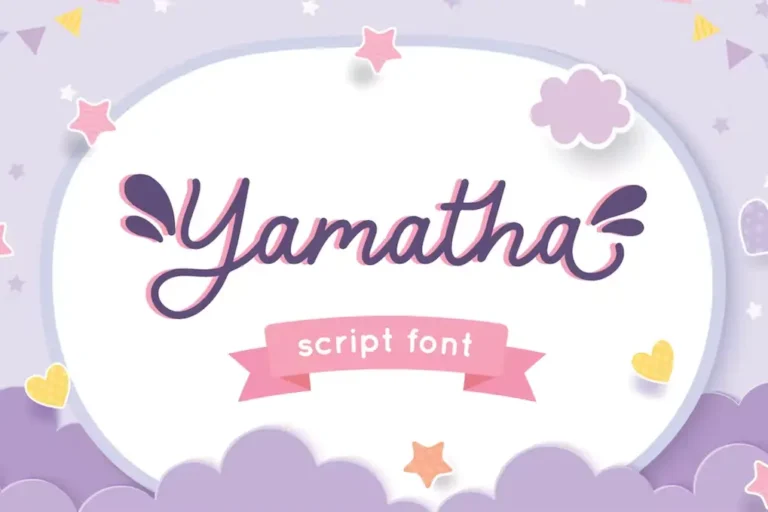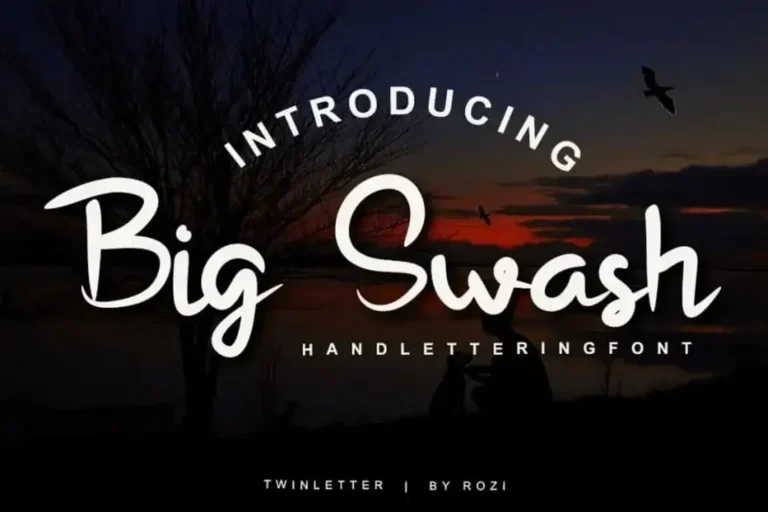
Fonts are a crucial element in any design project, and it’s no surprise that designers are always on the hunt for unique and stylish fonts. These free Swash tail fonts have gained popularity in recent years. Which are characterized by curvy edges and elegant long tails.
Swash fonts are a great way to add a touch of sophistication and flair to your designs. They are often used for invitations, wedding stationery, book covers, and branding materials. These fonts can be playful or formal, depending on the typeface you choose.
What Are Swash Fonts?
Swash fonts are decorative typefaces that feature elegant and exaggerated flourishes, curves, and tails on certain letters or numbers. These flourishes can be found in uppercase letters, lowercase letters, or both and are often used to add a touch of elegance or sophistication to a design.
Swash fonts originated in calligraphy and have been used for centuries in handwritten manuscripts and documents. In the digital era, swash fonts are available in a variety of styles and can be used in a range of design applications, including invitations, logos, and packaging.
Best Free Swash Tail Fonts & Long Tails Fonts
- Kathiya – Beautiful Script Swash Font
- Cosmic Furry – Script Font With Beautiful Tail
- Wild Romance – Quirky Handwritten Font With Swash Tail
- Amertha – Free Modern Calligraphy Long Tail Font
- Modernline – Free Organic Handwritten Swash Font
- Monstores – Fancy Signature Script Font
- Aligano – Exquisite Handwritten Swash Font
- Mittan Candy – Cute Script Font With Swash Style
- Yamatha – Script Font With Swash Style
- Big Swash – Free Handlettering Script Font
- Mechaniclove – Free Bold Script Swash Font
- Nastar – Clean Script Font With Swash
- Bitterdine – Natural Calligraphy Long Tail Font
- Marlyna – Wedding Script Stylish Tail Font
- Melloner Trio font Plus Swash
- Gontela – Handwritten Vintage Font With Swashes
Kathiya – Beautiful Script Swash Font
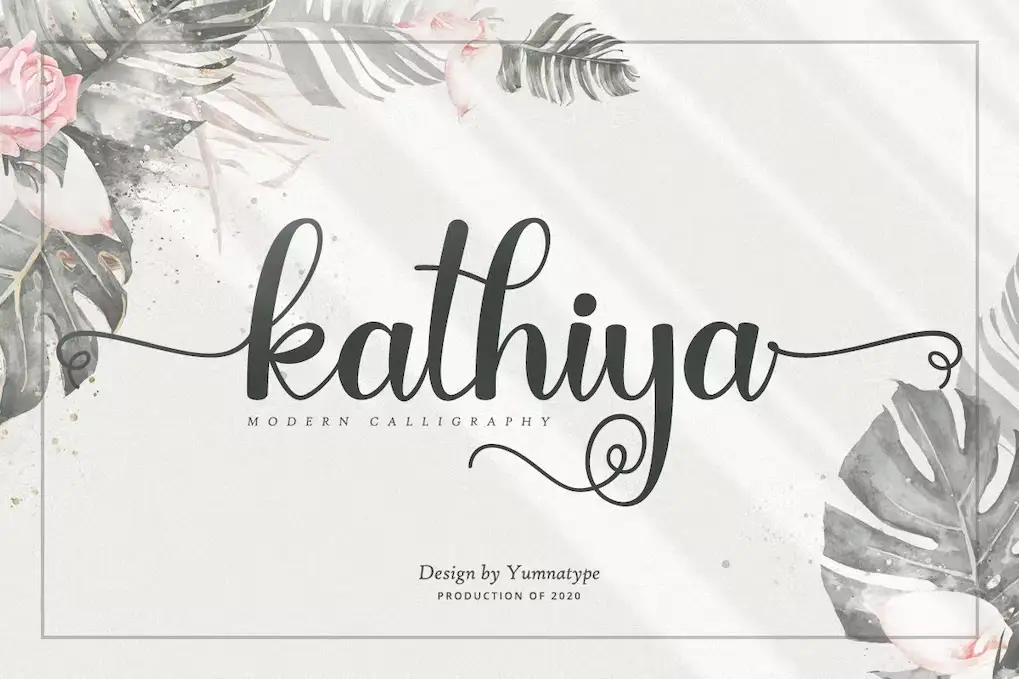
Kathiya is a stunning modern calligraphy script font that is sure to add elegance and sophistication to any project. With its unique and curvy letter designs, it’s perfect for creating eye-catching product labels, creative business cards, custom T-shirts, and much more.
Cosmic Furry – Script Font With Beautiful Tail
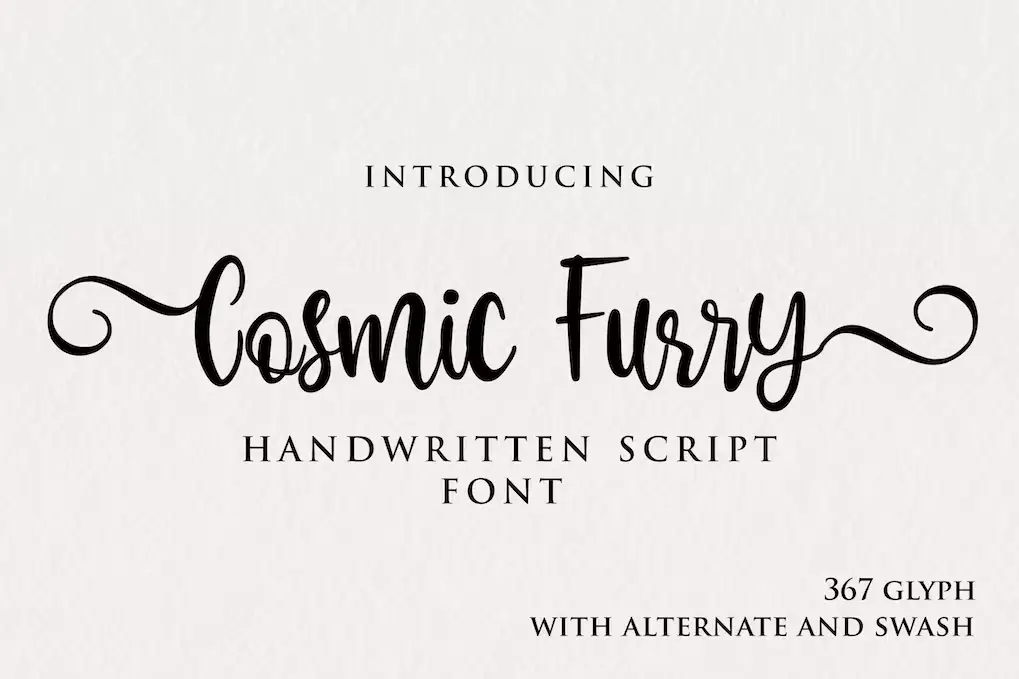
Cosmic Furry is a stunning script font that features a beautiful swash tail. This font is perfect for those who are looking for a simple, yet elegant handwritten script that is versatile enough to be used in a wide range of projects.
This font is particularly well-suited to feminine projects. Its delicate strokes and gentle curves lend themselves well to designs that have a soft, romantic feel.
Wild Romance – Quirky Handwritten Font With Swash Tail
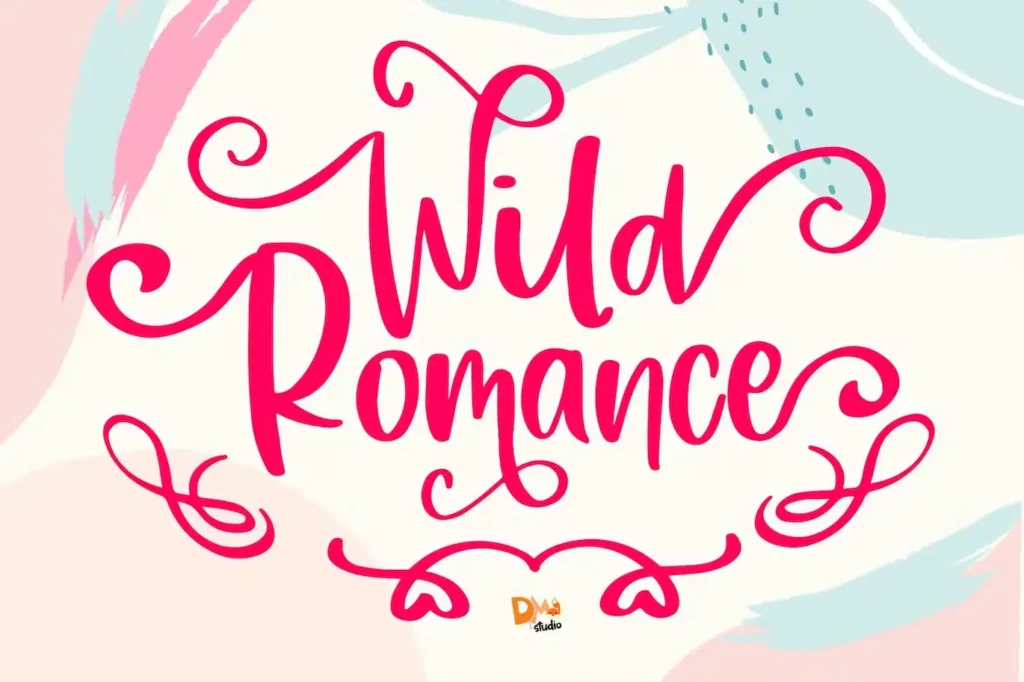
Wild Romance is an eye-catching and stylish handwritten font that adds a touch of whimsy to any design. With its quirky and playful style, this font is perfect for projects that need a little bit of personality.
Amertha – Free Modern Calligraphy Long Tail Font
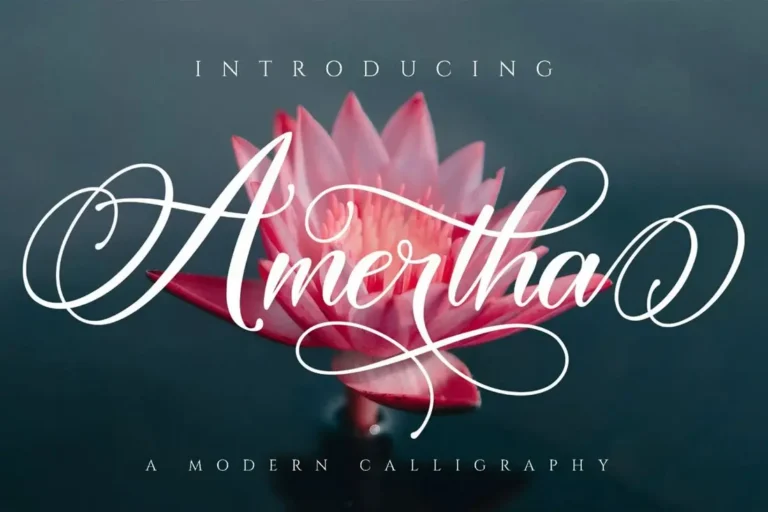
Amertha, a script font from Toni Studio, is perfect for elevating your creative projects. With its elegant swashes, you can easily add decorative elements to your designs in no time. Modern and stylish, Amertha is a must-have for any designer or crafter looking to take their work to the next level.
Modernline – Free Organic Handwritten Swash Font
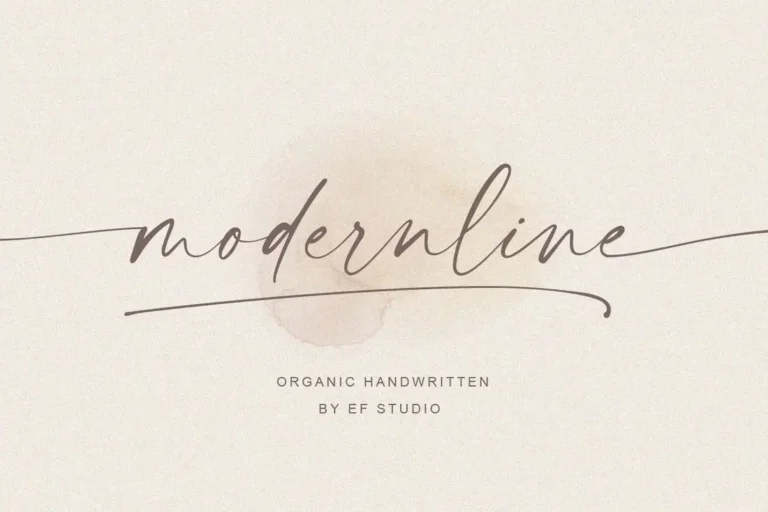
Modernline font offers a versatile option for various design needs. With its modern and authentic style, it’s perfect for branding, invitations, and packaging. The font includes a full set of letters, numerals, and symbols with additional swashes and ligatures.
Monstores – Fancy Signature Script Font
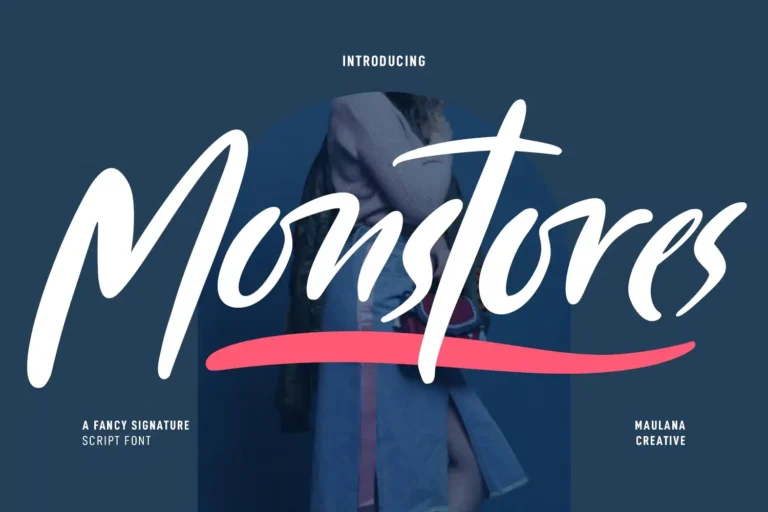
Monstores is a versatile script font with slanted felt-tip strokes, ligatures, and swashes. It supports 100+ languages and is great for logos, social media, and more. Use it for short or long text, as a secondary font with sans or serif, and create stunning designs.
Aligano – Exquisite Handwritten Swash Font
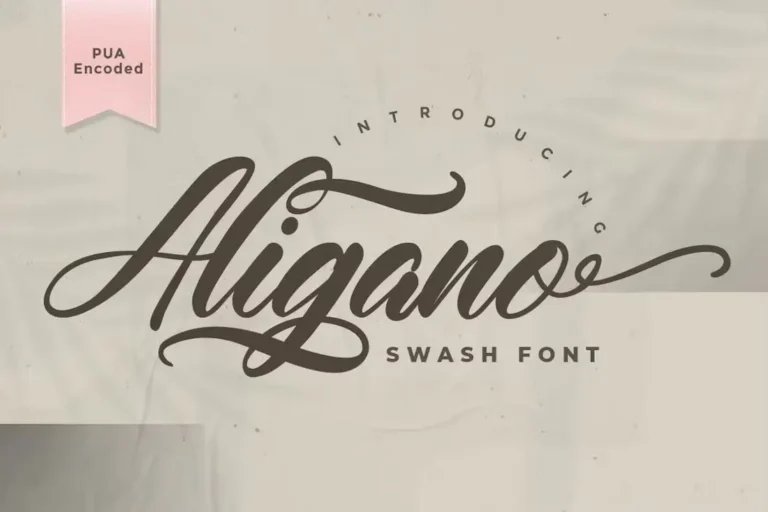
Aligano Swash Font is a stunning blend of traditional calligraphy and modern design. Its unique style is sure to elevate any project to new heights, making it a must-have for any designer or creative. Get ready to fall in love with this exquisite handwritten font!
Mittan Candy – Cute Script Font With Swash Style
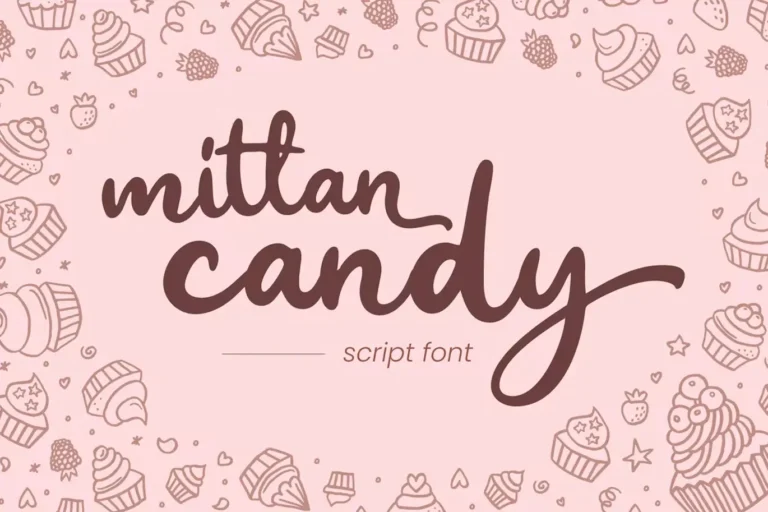
In conclusion, free swash tail fonts are a beautiful and versatile addition to any designer’s font collection. Whether you’re working on a wedding invitation, a book cover, or a branding project, a swash font can add an element of sophistication and elegance to your designs. So go ahead, indulge in your love for swash fonts, and experiment with different styles and pairings to create stunning designs.